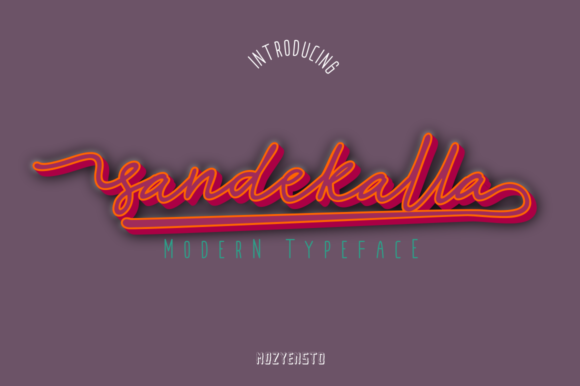
Journey back to the era of timeless elegance with Sandekalla, a display font that captures the essence of retro charm. Crafted by the skilled hands at Mozyenstudio, this font is not just a collection of characters; it's a gateway to a world of creativity and distinction.
Sandekalla's meticulously designed curves and sharp edges dance together in perfect harmony, creating a visual spectacle that is both captivating and timeless. Its retro aesthetic exudes a sense of nostalgia, transporting you to an era where style and substance were inseparable. Whether you're designing a modern resume, crafting a captivating social media post, or adding a touch of vintage flair to your latest project, Sandekalla is your perfect companion.
With Sandekalla, your designs will transcend the ordinary and enter the realm of the extraordinary. Its unique character set, complete with uppercase letters, lowercase letters, numbers, and a selection of punctuation marks, provides endless possibilities for creative expression. Unleash your imagination and let Sandekalla guide you towards design masterpieces that leave a lasting impression.
Step into the spotlight and let Sandekalla be your secret weapon. Whether you're a seasoned designer or just starting your creative journey, this font will elevate your work to new heights. Its versatility knows no bounds, effortlessly adapting to a wide range of design projects. From eye-catching logos and branding materials to stunning invitations and social media graphics, Sandekalla is the key to unlocking your creative potential.
Don't settle for ordinary fonts that blend into the background. Embrace the power of Sandekalla and let your designs shine brighter than ever before. Its timeless appeal and distinct personality will transform your creative vision into a reality, leaving your audience in awe.